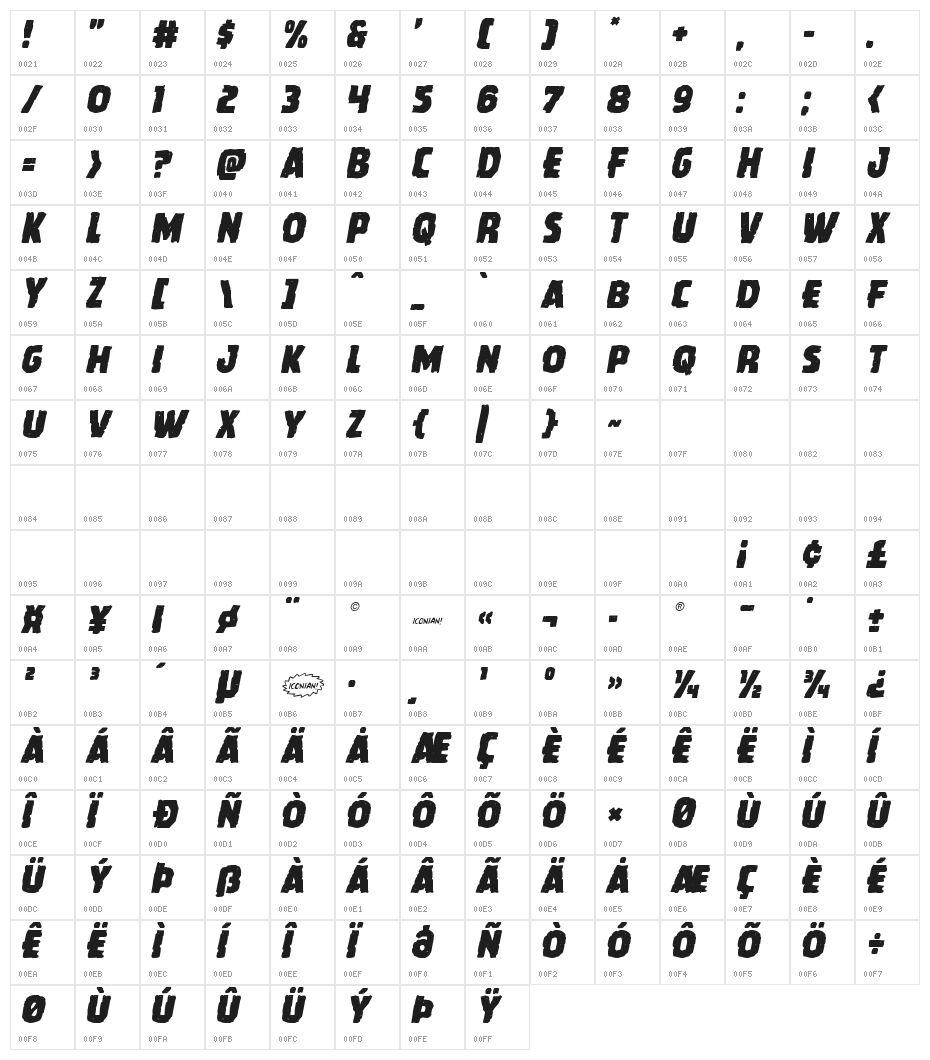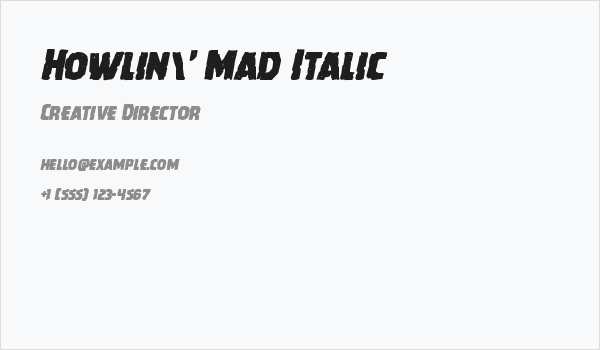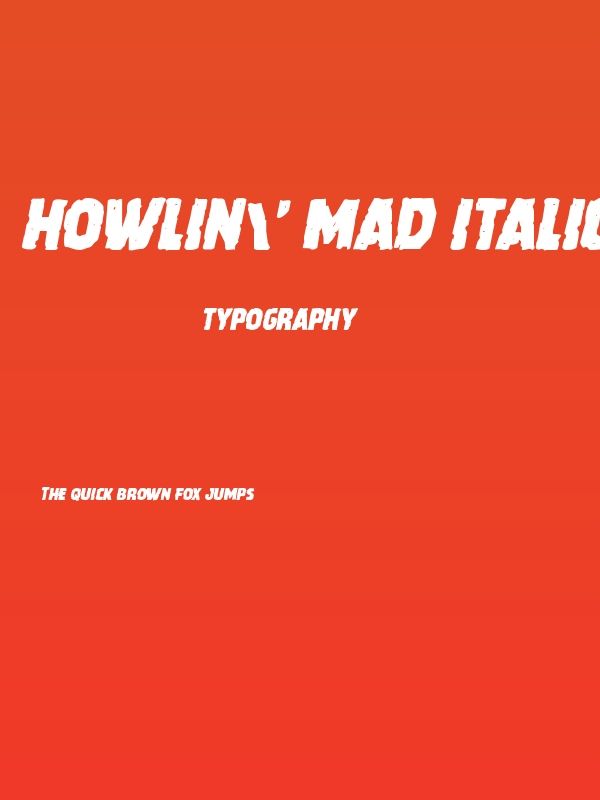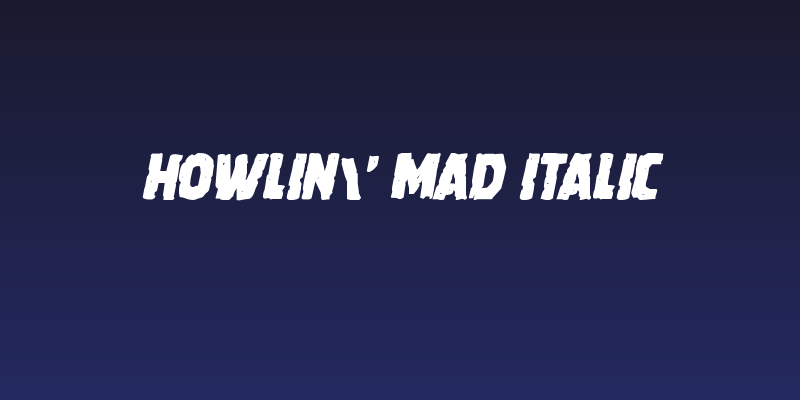
Howlin' Mad Italic Font
Howlin' Mad Italic Description
This font features a bold, italicized style with a rugged, distressed appearance. The characters are heavily stylized with uneven edges and a dynamic slant, giving it a sense of movement and energy. The uppercase and lowercase letters maintain a consistent weight, while the numbers and special characters follow the same bold, impactful design. The font's unique texture and bold presence make it stand out, suitable for projects that require a strong visual impact.
| Proposed Projects | Ideal for posters, album covers, video game graphics, and branding that requires a bold, edgy look. |